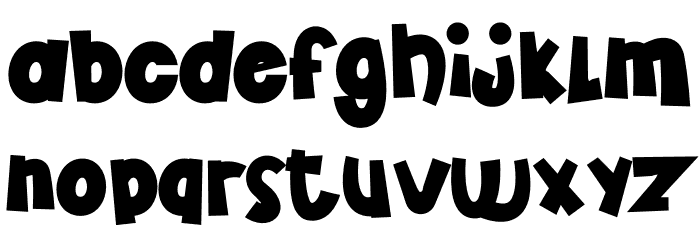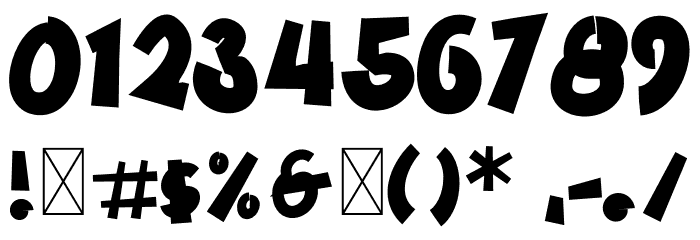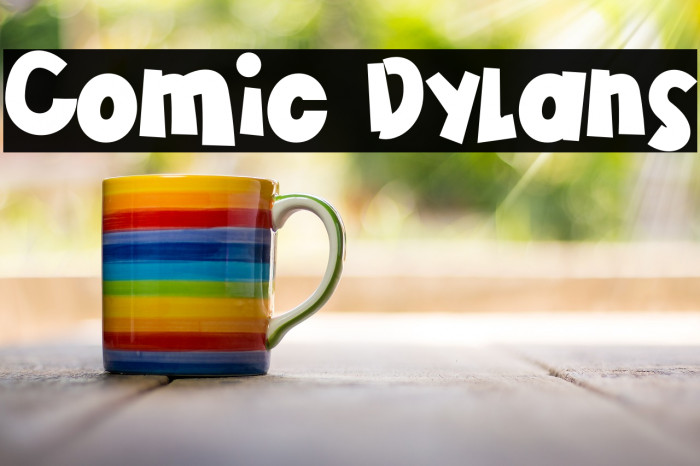
Comic Dylans Font
This playful and bold font features exaggerated, whimsical letterforms that convey a sense of fun and creativity. The characters are irregular and dynamic, with a hand-drawn appearance that adds a personal touch. The uppercase and lowercase letters maintain a consistent style, with rounded edges and varying stroke widths that create a lively and energetic feel. The numbers and special characters follow the same playful design, making this font ideal for projects that require a casual and informal tone.
A playful, bold font with whimsical, hand-drawn letterforms.
- Proposed Projects: Ideal for children's books, comic strips, playful branding, and creative posters.
- Overall Style: Playful, Creative
- Use Case: Headlines, Posters, Branding